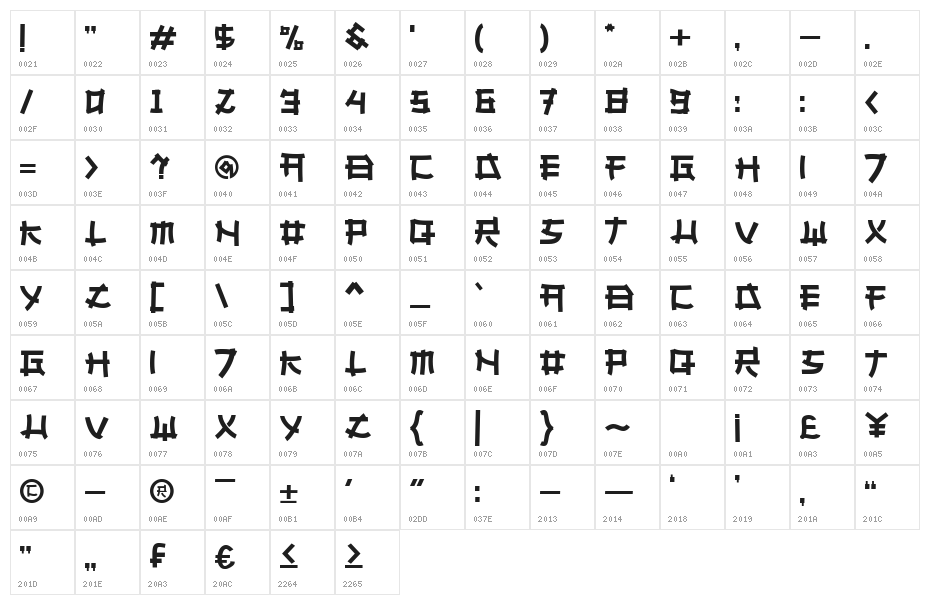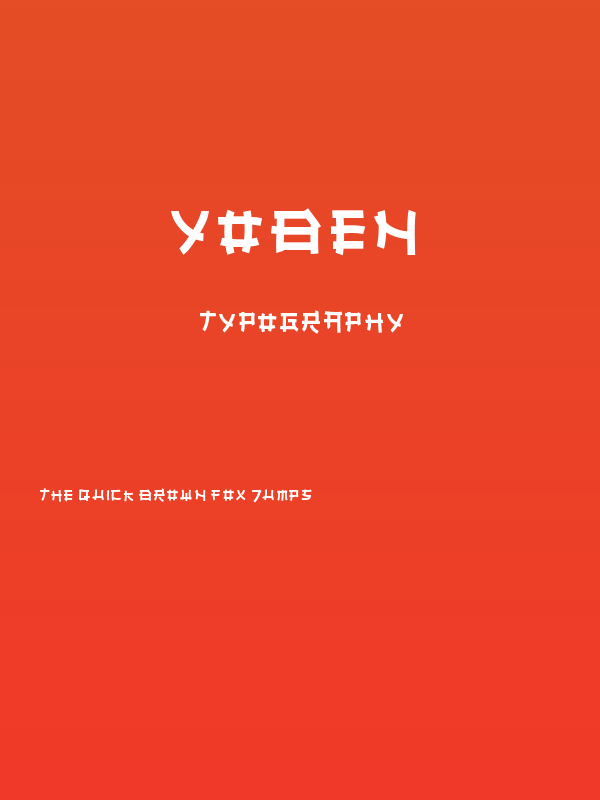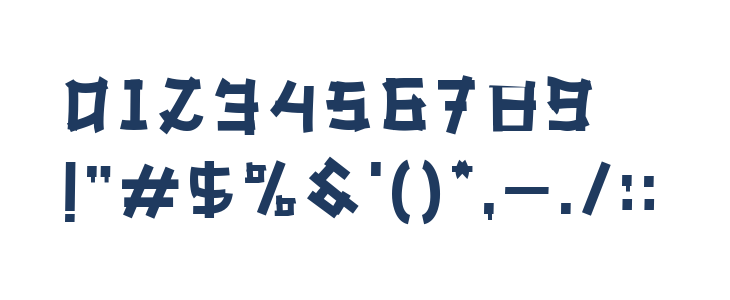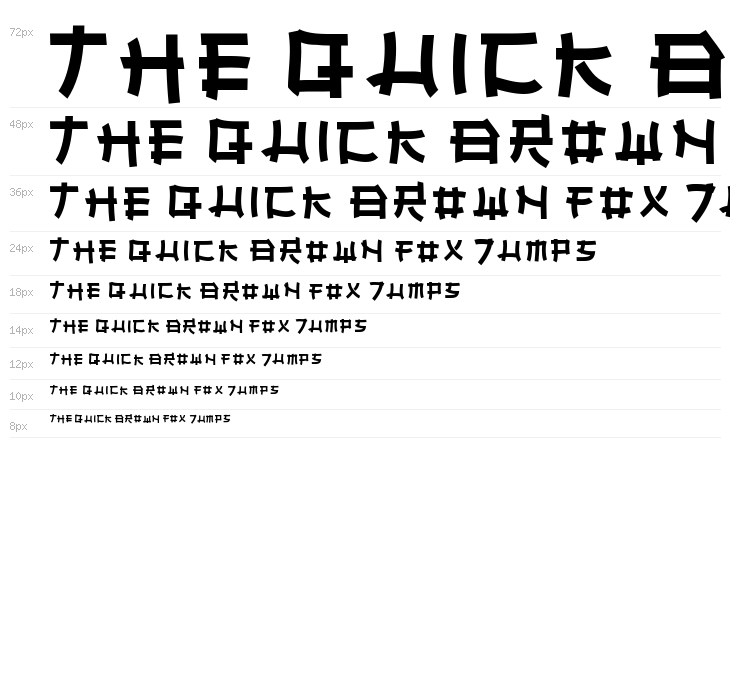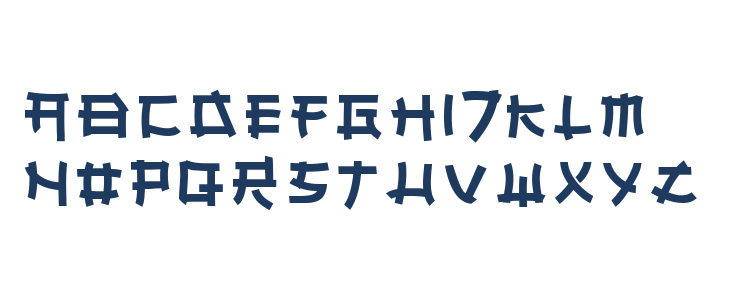
yoben Font
yoben Description
This font features a bold and striking design with angular, geometric shapes that give it a unique and edgy appearance. The characters are constructed with sharp, pointed edges and thick strokes, creating a sense of strength and modernity. The uppercase and lowercase letters maintain a consistent style, with a slightly condensed width that enhances its boldness. The numbers and special characters follow the same design principles, ensuring uniformity across the font. This font's distinctive style makes it ideal for projects that require a strong visual impact.